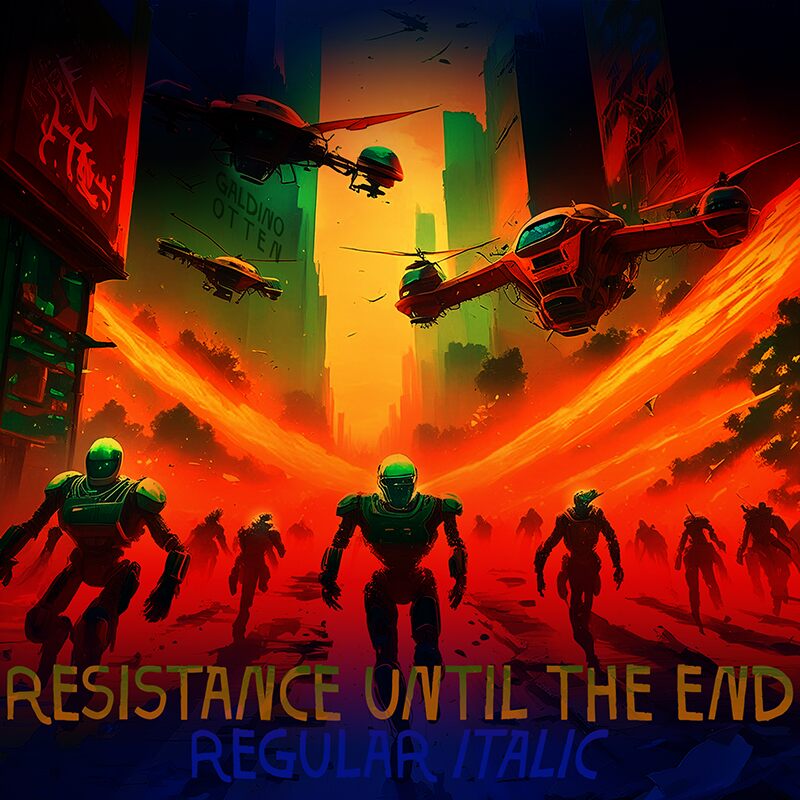
Resistance Until The End
Resistance Until The End, a captivating display font created by the talented Galdino Otten, exudes a harmonious blend of playfulness and resilience. With its whimsical yet striking appearance, this font effortlessly captures the spirit of rebellion and unwavering determination. The bold, organic strokes and unique character shapes lend an endearing, cartoon-inspired aesthetic, inviting viewers to embrace the font's charismatic charm.
This versatile font shines in a variety of design applications, from bold headings and attention-grabbing logos to dynamic packaging and impactful marketing materials. Its distinctive personality makes it an excellent choice for projects that seek to convey a sense of resilience, adventure, or a rebellious spirit, such as album covers, t-shirt designs, or event branding. Resistance Until The End's captivating presence is sure to leave a lasting impression, making it a valuable addition to any designer's toolkit.